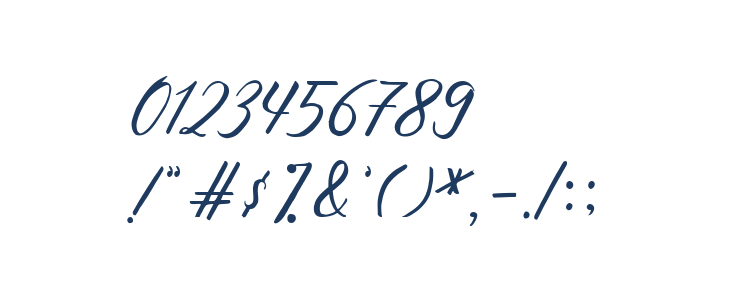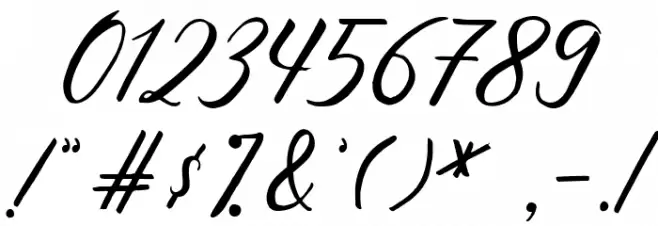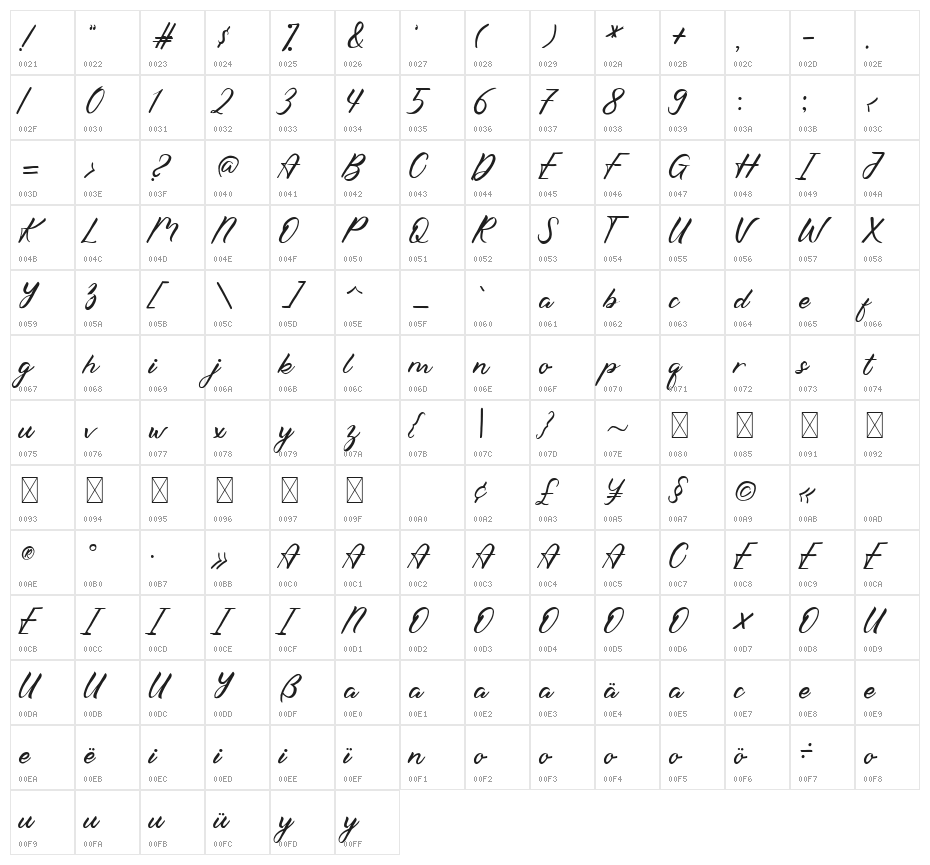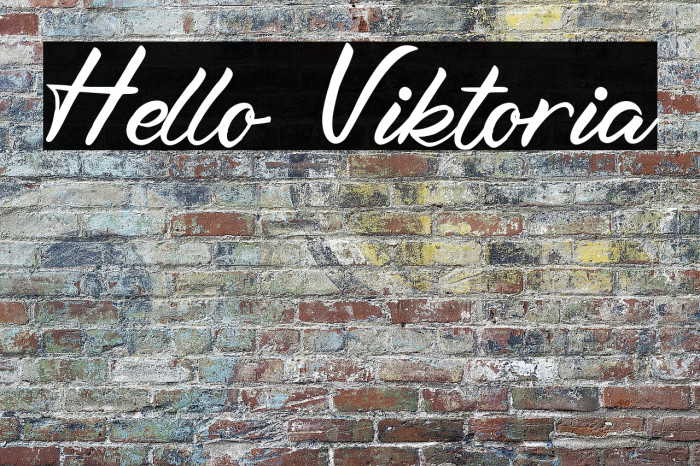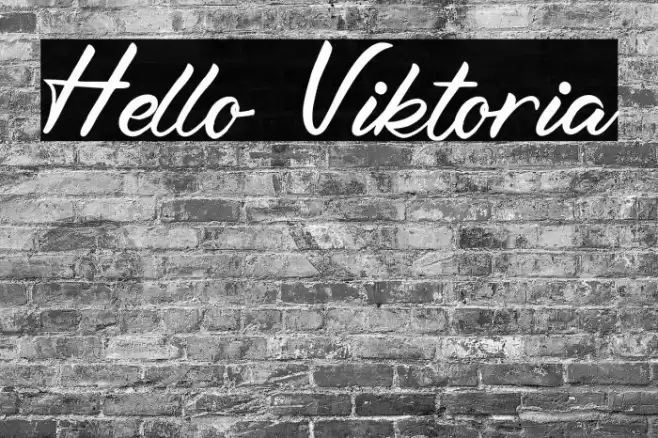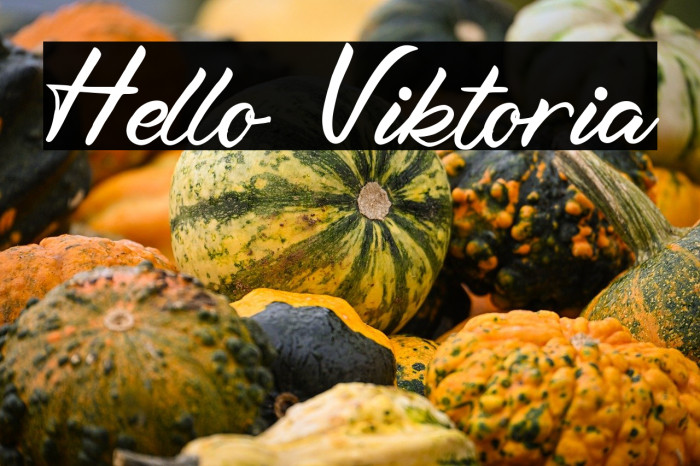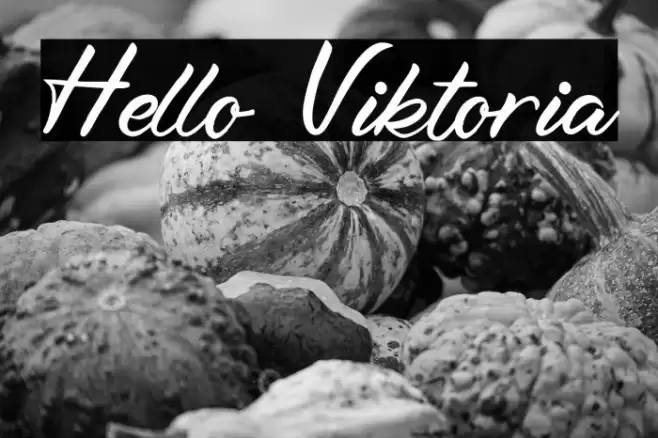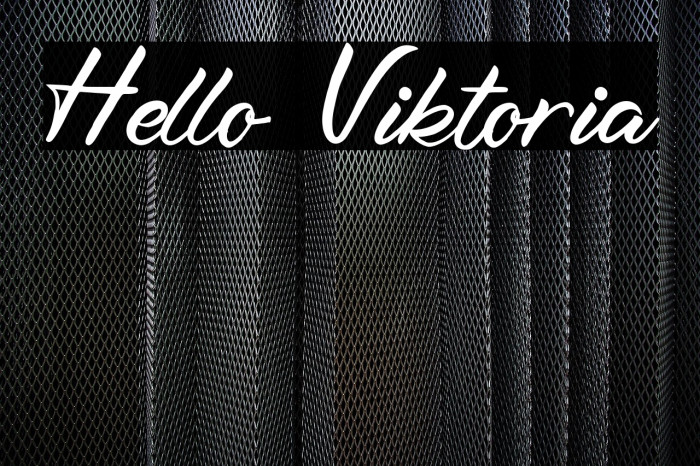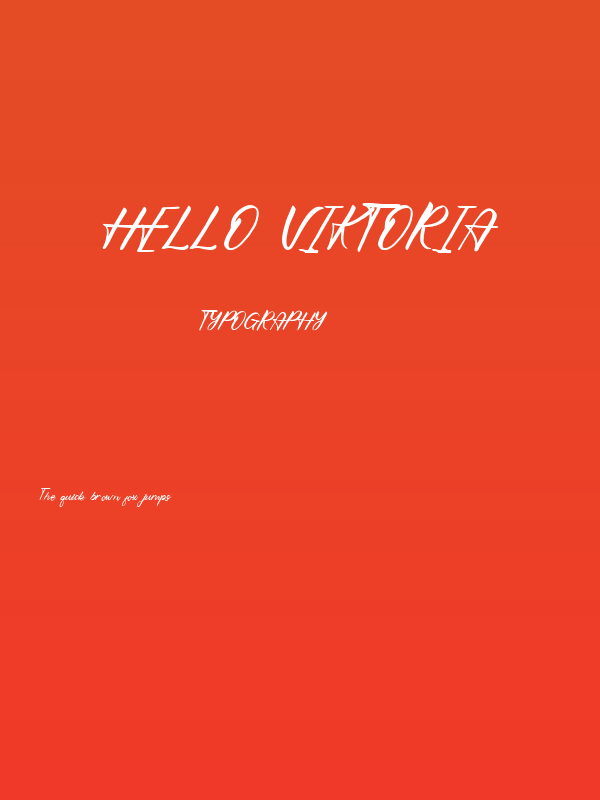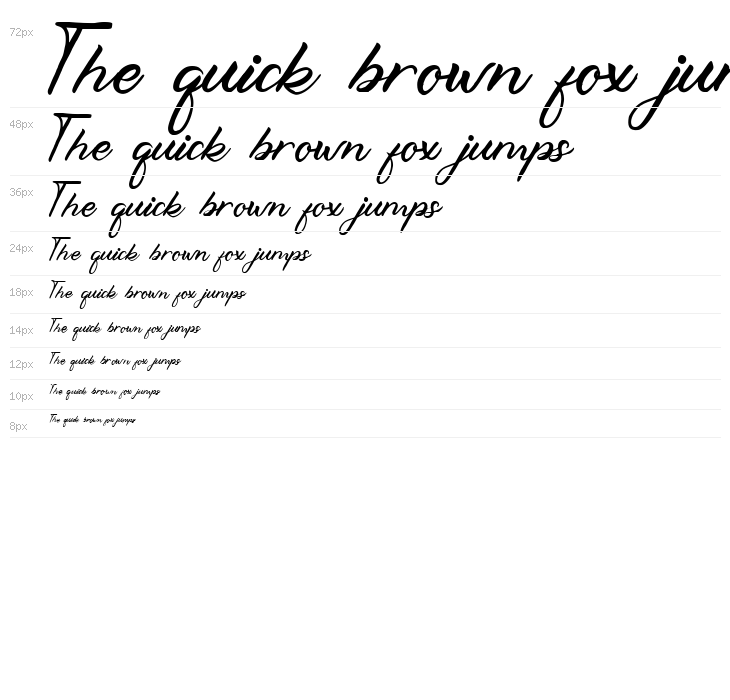
Hello Viktoria Font
Hello Viktoria Description
This font exudes a lively and dynamic energy with its fluid, cursive style. The characters are elegantly connected, creating a seamless flow that mimics natural handwriting. The strokes are smooth and slightly varied in thickness, adding a touch of sophistication and charm. The uppercase letters stand tall with a slight slant, while the lowercase letters maintain a consistent rhythm and balance. The numerals and special characters are crafted with the same attention to detail, ensuring a cohesive look across all elements. This font is perfect for projects that require a personal, handwritten touch.